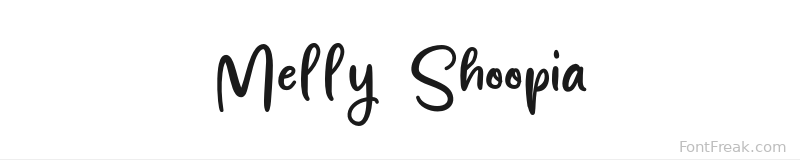
Melly Shoopia
Melly Shoopia, designed by MJType, is a captivating handwritten font that brings a playful yet elegant touch to any project. This unique typeface showcases a fluidity in its letterforms, characterized by gentle curves and a whimsical flair. The stroke weight varies subtly, allowing for a sense of dynamism that keeps the eye engaged. Its moderate contrast enhances readability while maintaining a friendly appearance, making it ideal for a variety of applications. The spacing between characters is well-balanced, contributing to an overall harmonious visual effect.
Perfect for wedding invitations, the Melly Shoopia font adds a personal touch to any romantic event, lending an air of sophistication and warmth. Its charming aesthetic also makes it suitable for creative branding, particularly for small businesses like boutiques or artisanal cafes that wish to convey an inviting atmosphere. Additionally, the font shines in social media graphics, where content creators can leverage its unique style to capture attention. It can be effectively employed in crafting memorable movie posters, where its playful nature can evoke curiosity and excitement.
What sets the Melly Shoopia font apart is its delightful blend of elegance and whimsy. It brings a fresh perspective to handwritten typefaces, making it a standout choice for anyone looking to add a personal touch to their designs. With the Melly Shoopia font free download, you can effortlessly elevate your creative projects while enjoying the unique character this font has to offer.